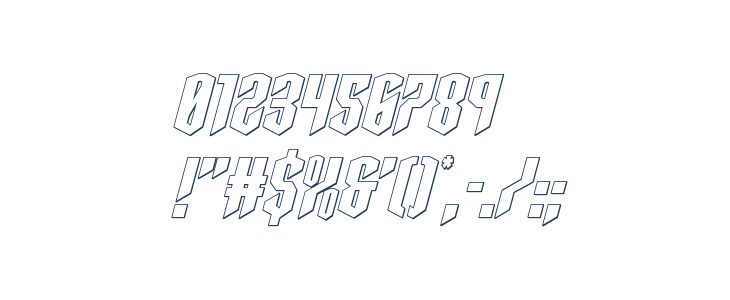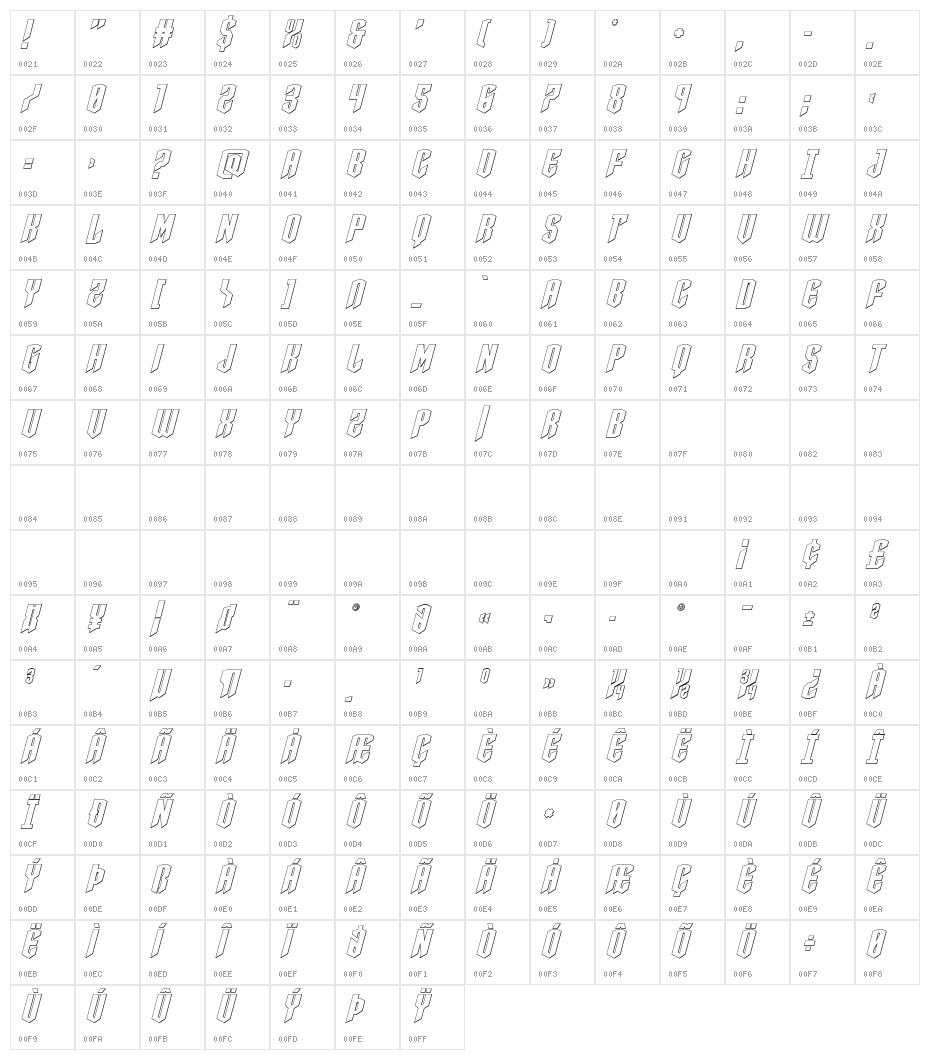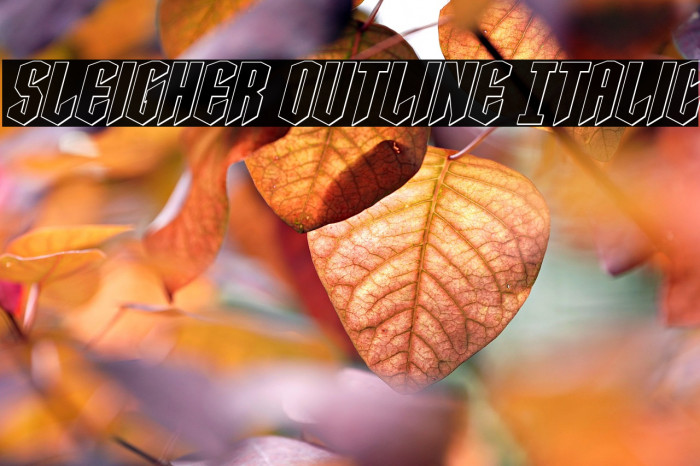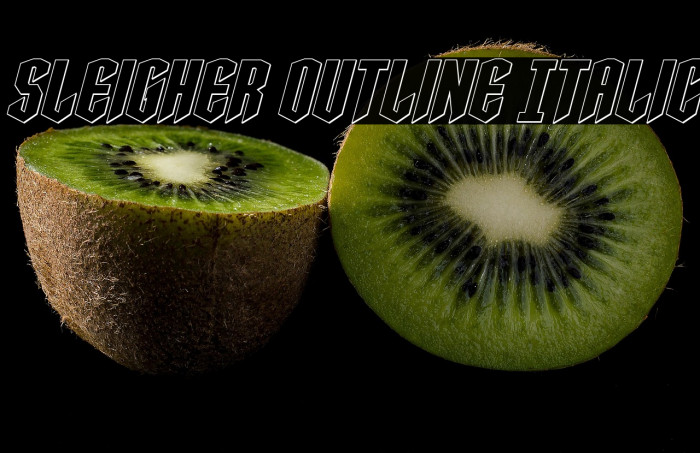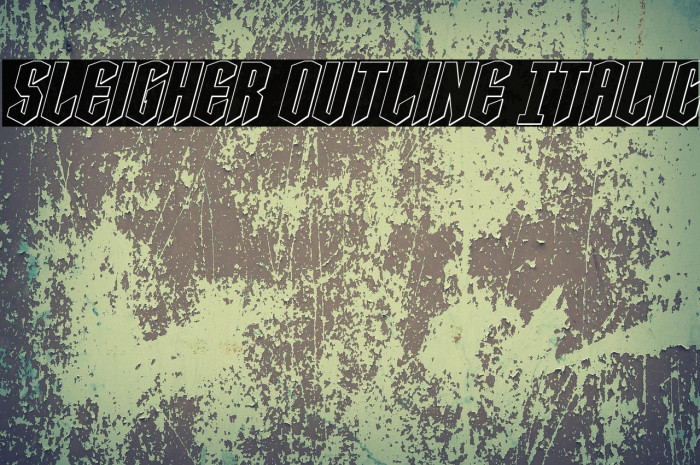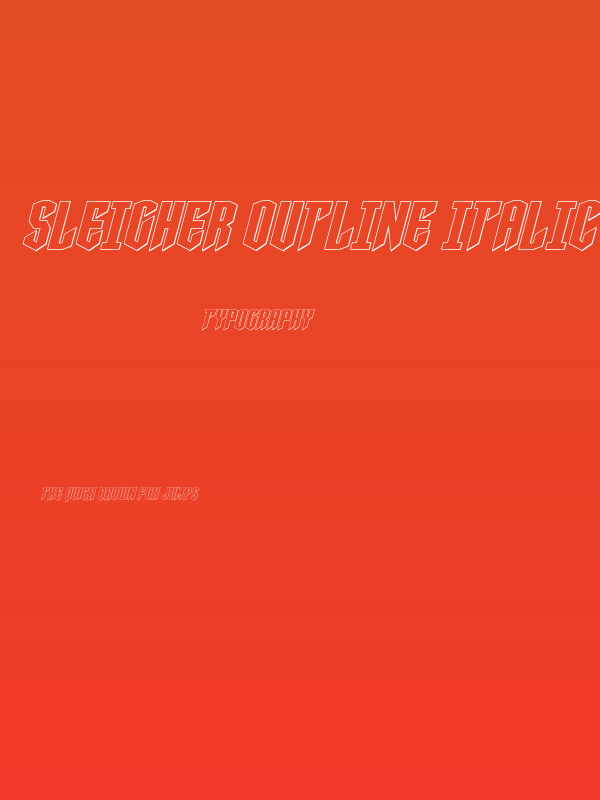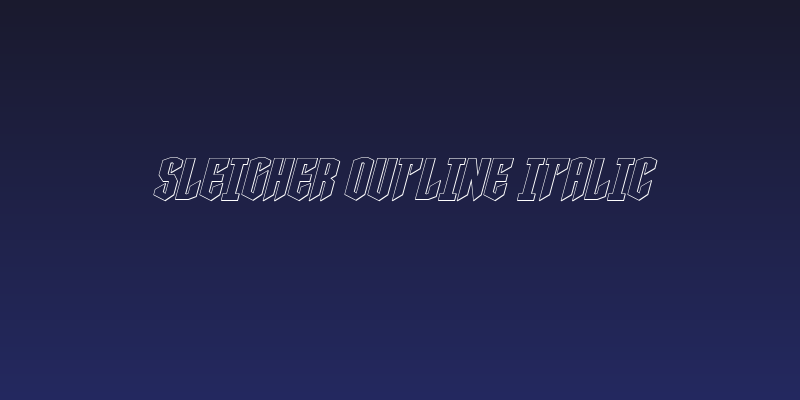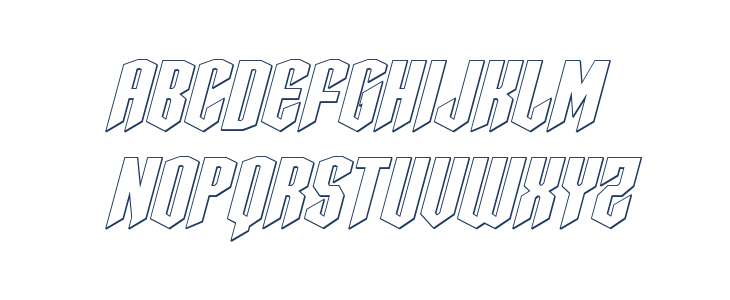
Sleigher Outline Italic Font
Sleigher Outline Italic Description
This font features a bold, outlined style with a distinct italic slant, giving it a dynamic and energetic appearance. The uppercase letters are angular and sharp, with a futuristic and edgy feel. The lowercase letters maintain the same angularity, ensuring consistency throughout the typeface. Numbers and special characters are designed to match the bold, outlined aesthetic, making them stand out prominently. The overall design is striking and attention-grabbing, suitable for projects that require a strong visual impact.